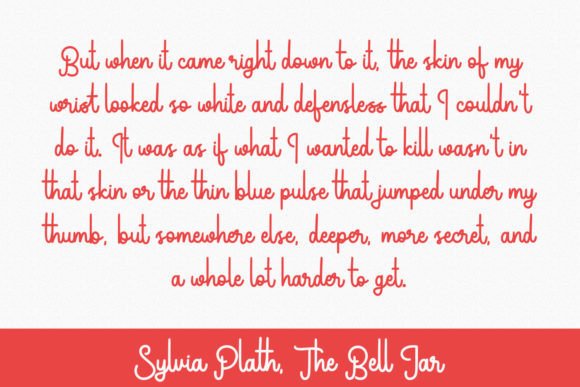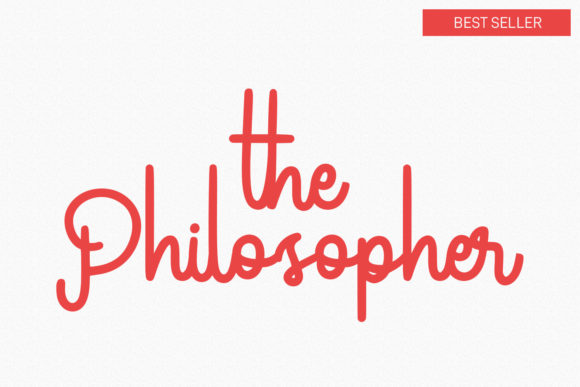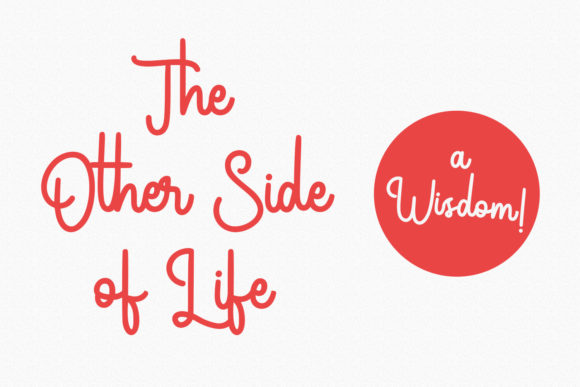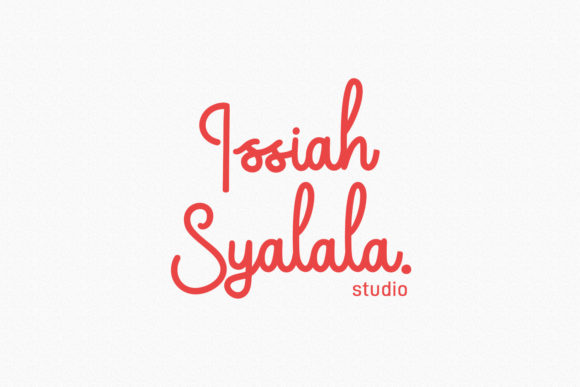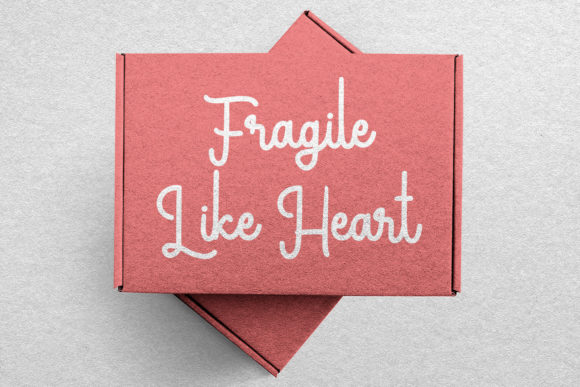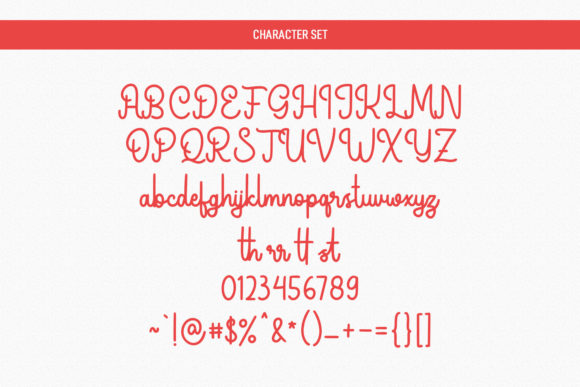
Introduction to Ivory Emery Script Font
Have you ever been brainstorming a creative project and suddenly, the perfect font pops into your head, setting the tone for your entire design? For many designers, this is a moment of pure magic. As you’re pouring over design resources, searching for that elusive font that will elevate your work, you stumble upon the Ivory Emery Script Font – a clean, elegant script that’s about to change your creative game.
This beautiful font is more than just a pretty face; it’s a valuable resource for designers looking to add a touch of sophistication to their projects. With its transparent background and high-quality design, the Ivory Emery Script Font is perfect for logo design, social media, movie titles, and book titles.
Key Features of Ivory Emery Script Font
- Unique Hand-Drawn Design: Ivory Emery Script Font features a beautiful, hand-drawn design that makes it perfect for creative projects and design resources.
- Perfect for Creative Projects: With its elegant and sophisticated design, Ivory Emery Script Font is ideal for wedding invitations, branding, and other creative projects.
Honest Review: Ivory Emery Script Font
One of the things that immediately caught my eye about the Ivory Emery Script Font was its elegant, cursive design. It’s perfect for adding a touch of sophistication to any creative project, and the transparent background makes it easy to overlay on top of images or other design elements.
- Beautiful, high-quality design ✨
- Transparent background for easy overlay
- May not be suitable for very small text sizes ⚠️
- Not as versatile as some other script fonts
Overall, I’m really impressed with the Ivory Emery Script Font. It’s a great design resource for anyone looking to add a touch of elegance to their creative project. While it may have some limitations, its high quality and beautiful design make it a great choice for many designers.
Tips for Getting the Most Out of Ivory Emery Script Font
Use the Ivory Emery Script Font for titles, headings, and other prominent text elements to add a touch of elegance and sophistication to your design. Experiment with different font sizes, colors, and styles to create a unique and eye-catching look. Don’t forget to use a high-quality image or background to complement the font’s beauty.
The Ivory Emery Script Font is perfect for creative projects such as wedding invitations, birthday cards, and other special occasion designs. It’s also great for branding and marketing materials, such as business cards, logos, and brochures. With its high-quality design and free download option, the Ivory Emery Script Font is a valuable design resource for any creative project.